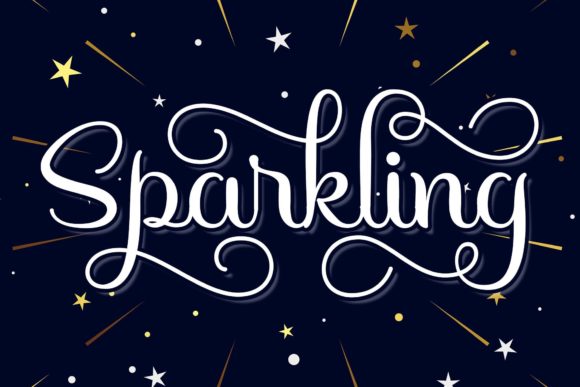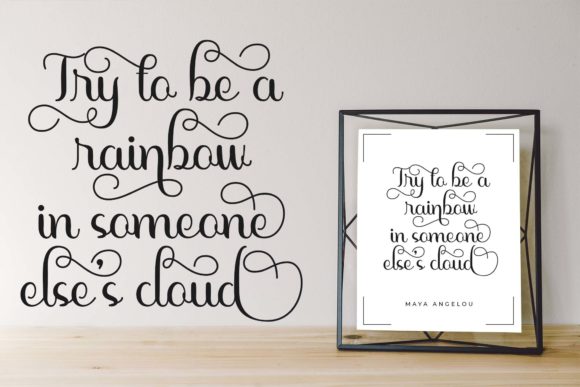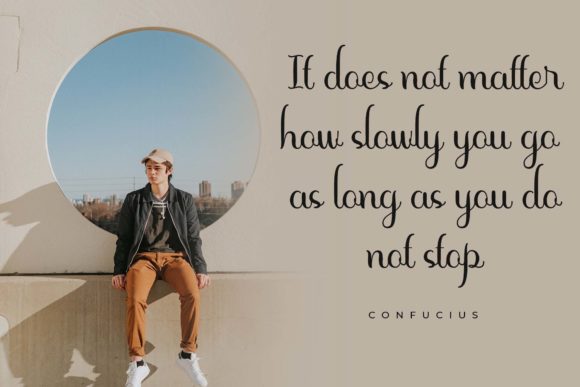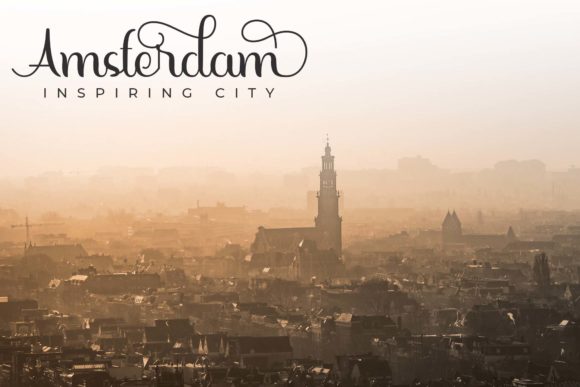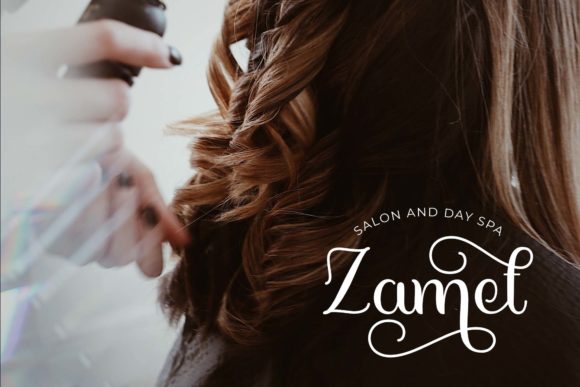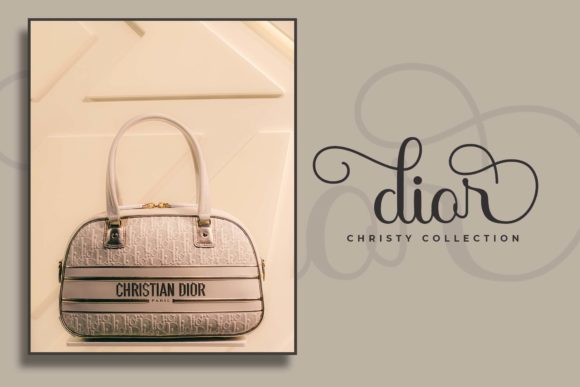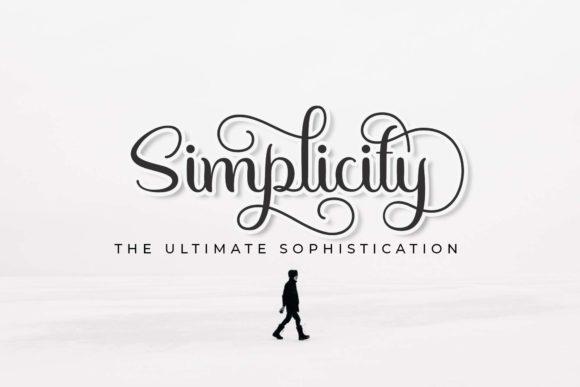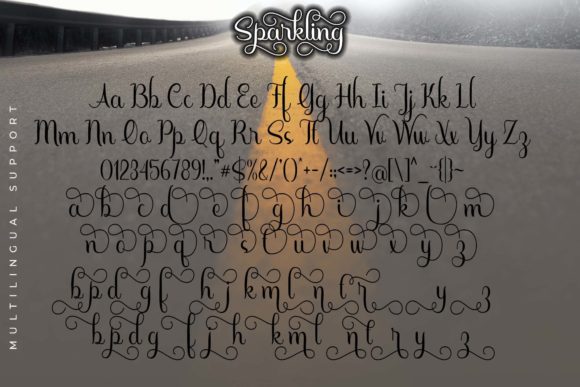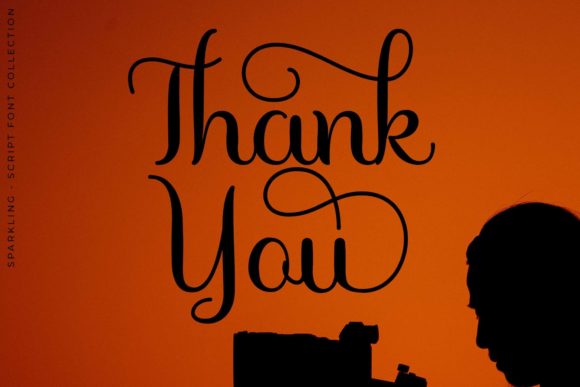
Sparkling Font
“Sparkling” stands as a charming and enduring handwritten font. It emerges as an ideal selection for crafting captivating logos, establishing memorable branding, and showcasing impactful quotes. Within each letter lies an individualistic and exquisite essence, capable of breathing life into your designs.
With its timeless appeal, “Sparkling” promises to elevate your projects to new heights. The unique and captivating touch of every letter contributes to the font’s distinctive allure, capturing attention and leaving a lasting impression.
An added advantage lies in the font being PUA encoded, allowing effortless access to its array of glyphs and swashes. This feature empowers you to unleash your creativity, seamlessly incorporating the font’s intricate details to enhance your designs. Whether it’s the elegant curves, the intricate ligatures, or the graceful swashes, “Sparkling” offers a diverse set of elements to elevate your design aesthetics.
By integrating “Sparkling” into your creative endeavors, you’re not only making a choice that resonates with timeless beauty but also ensuring that your design projects exude an authentic and captivating touch.